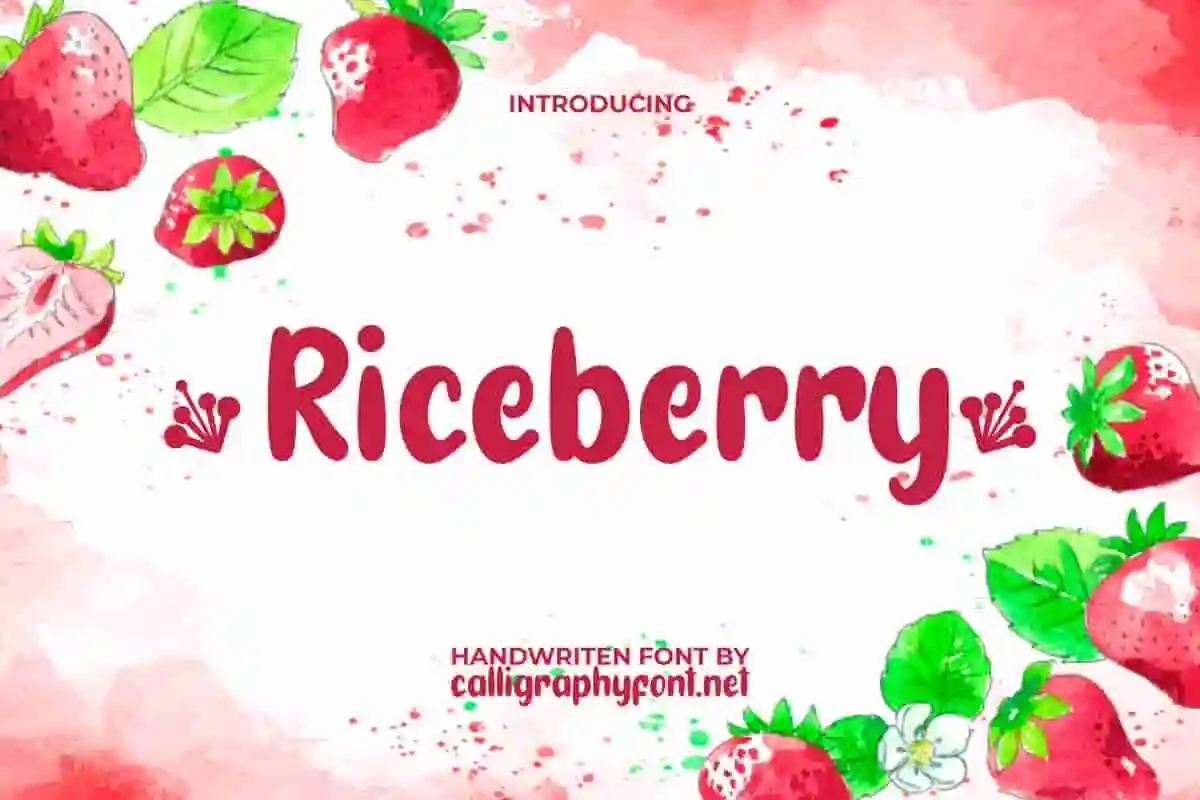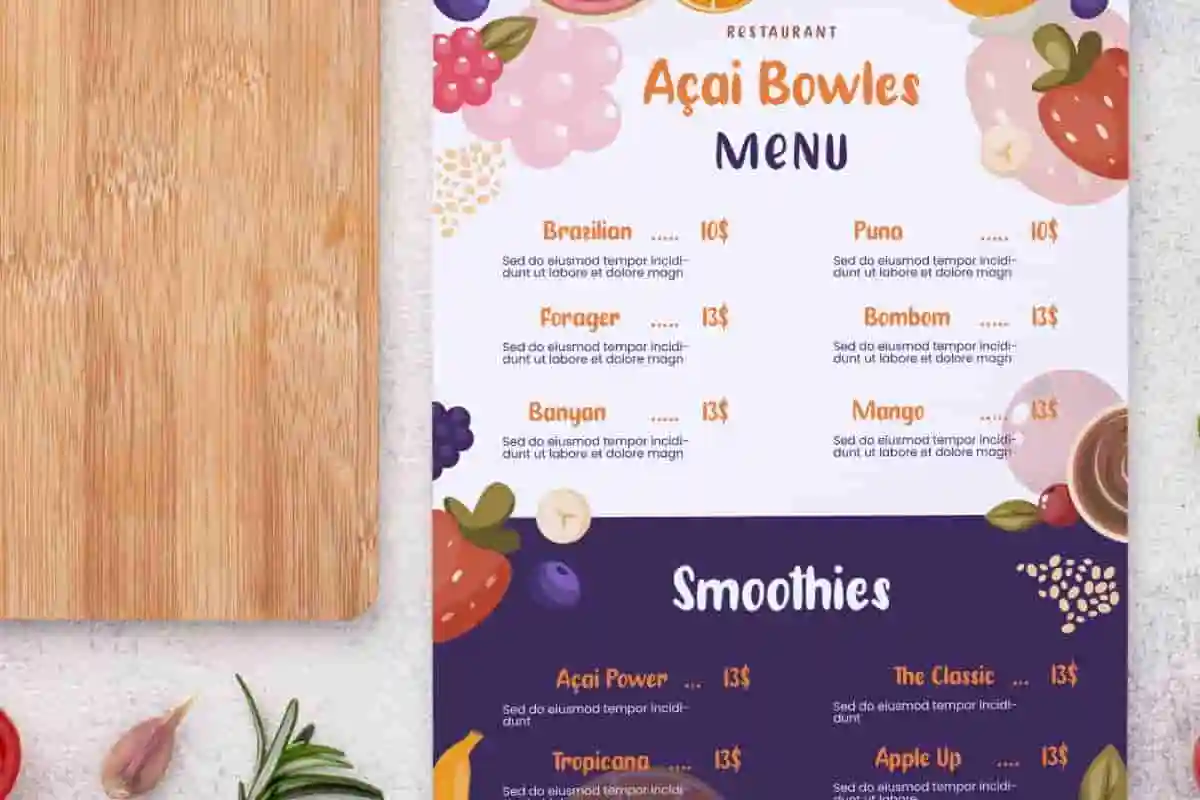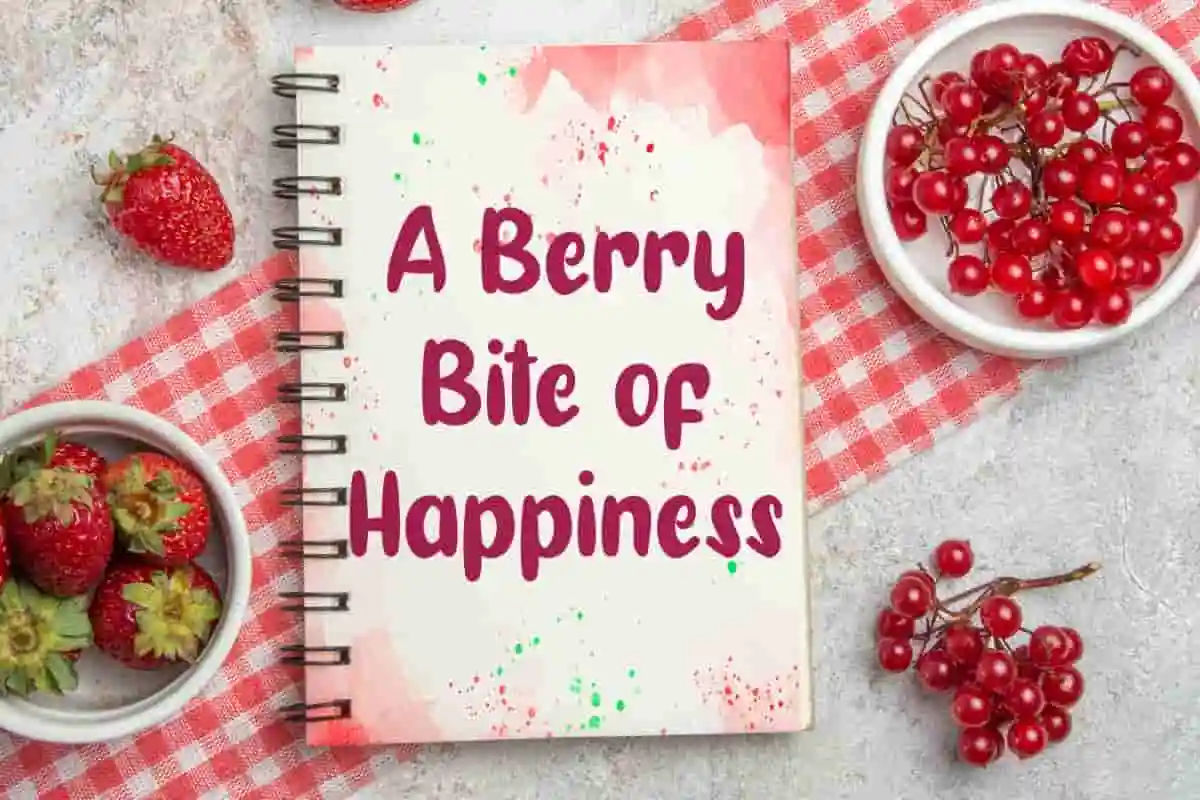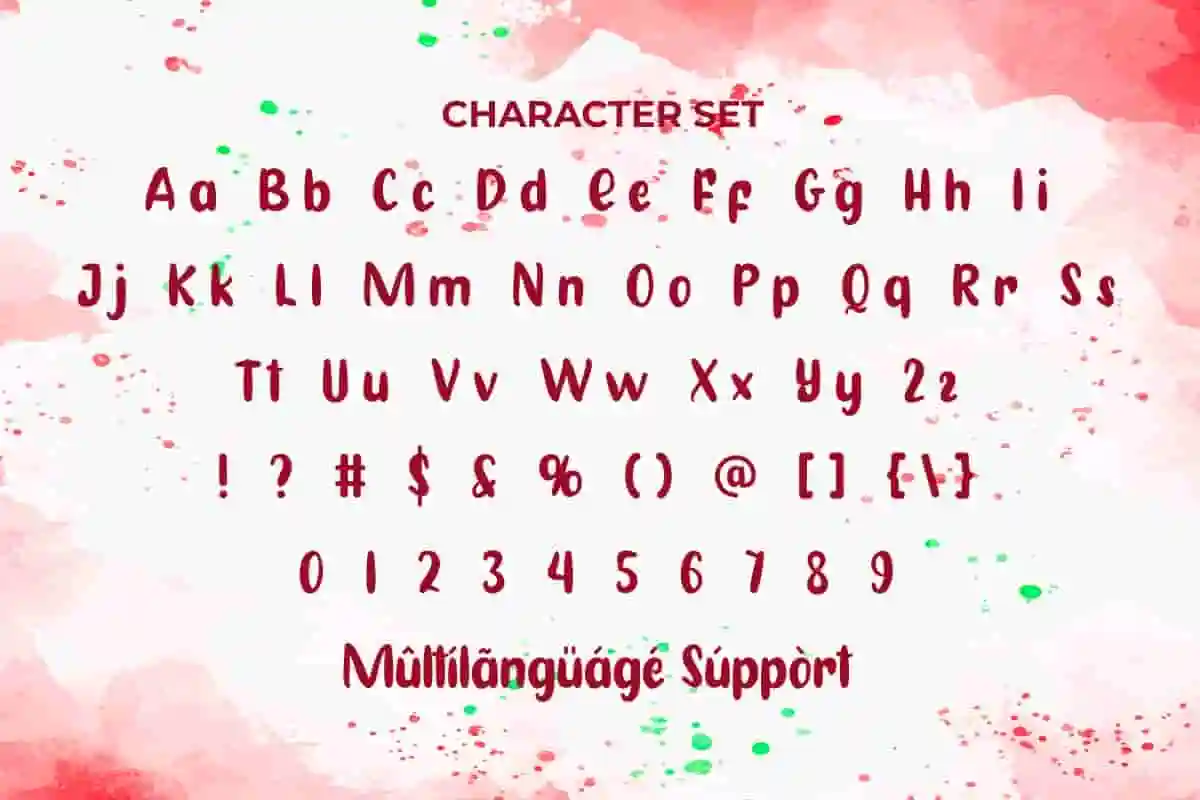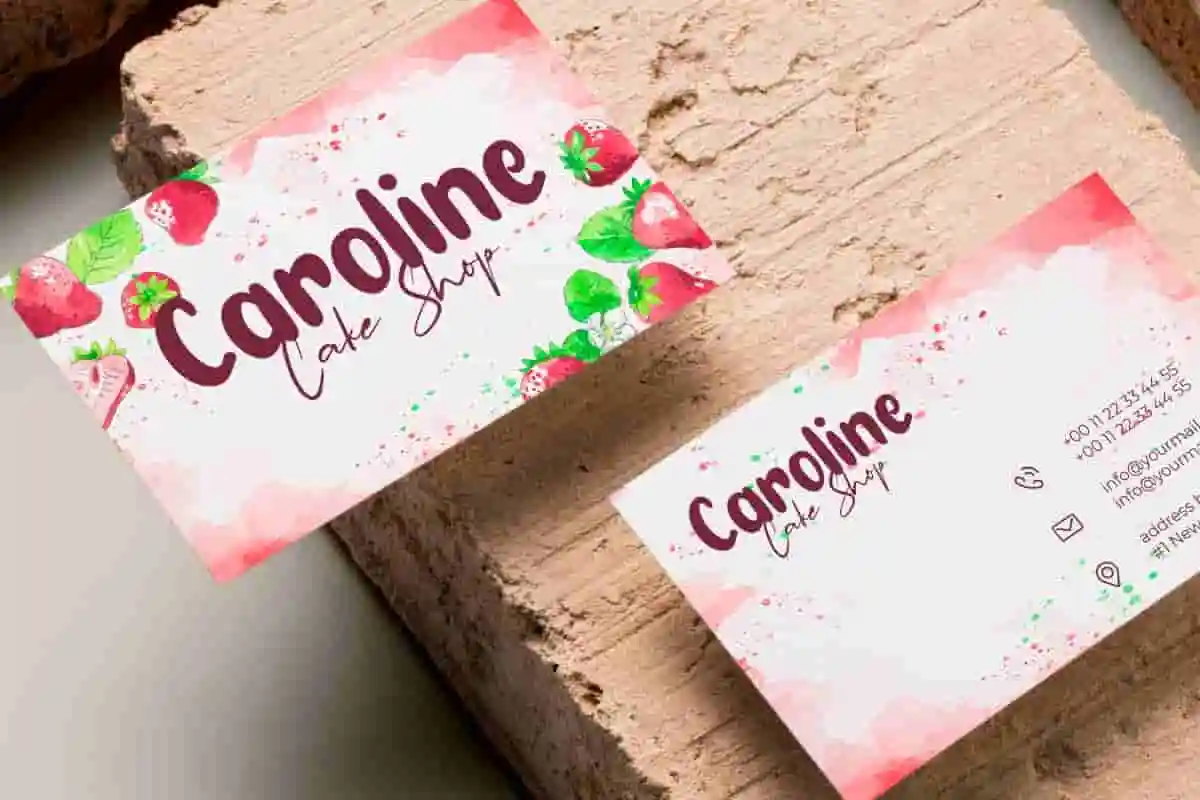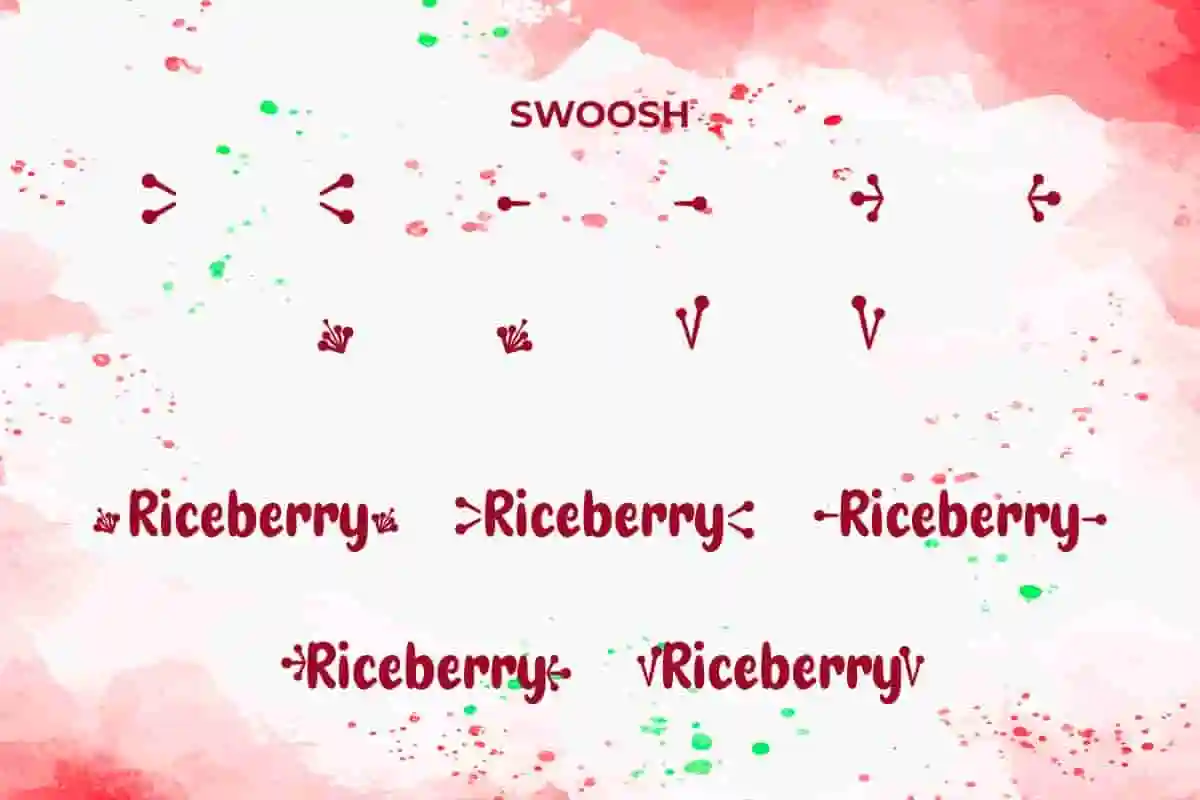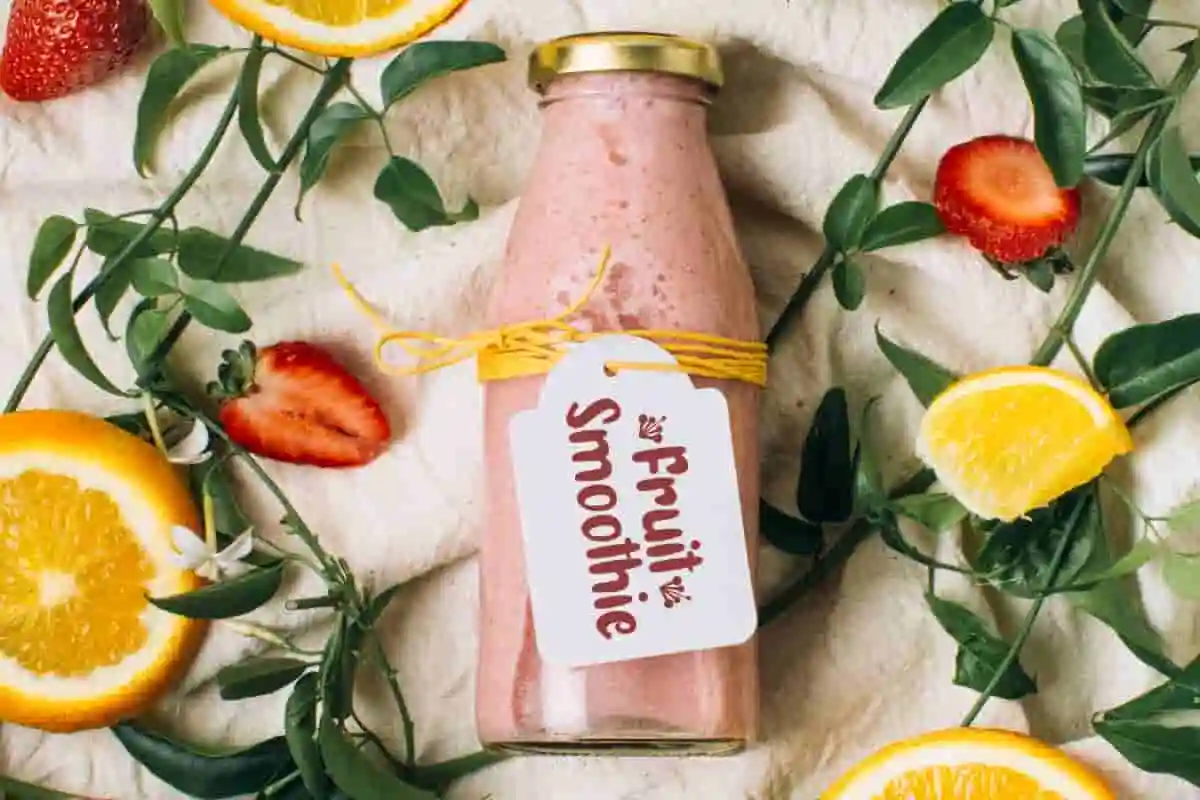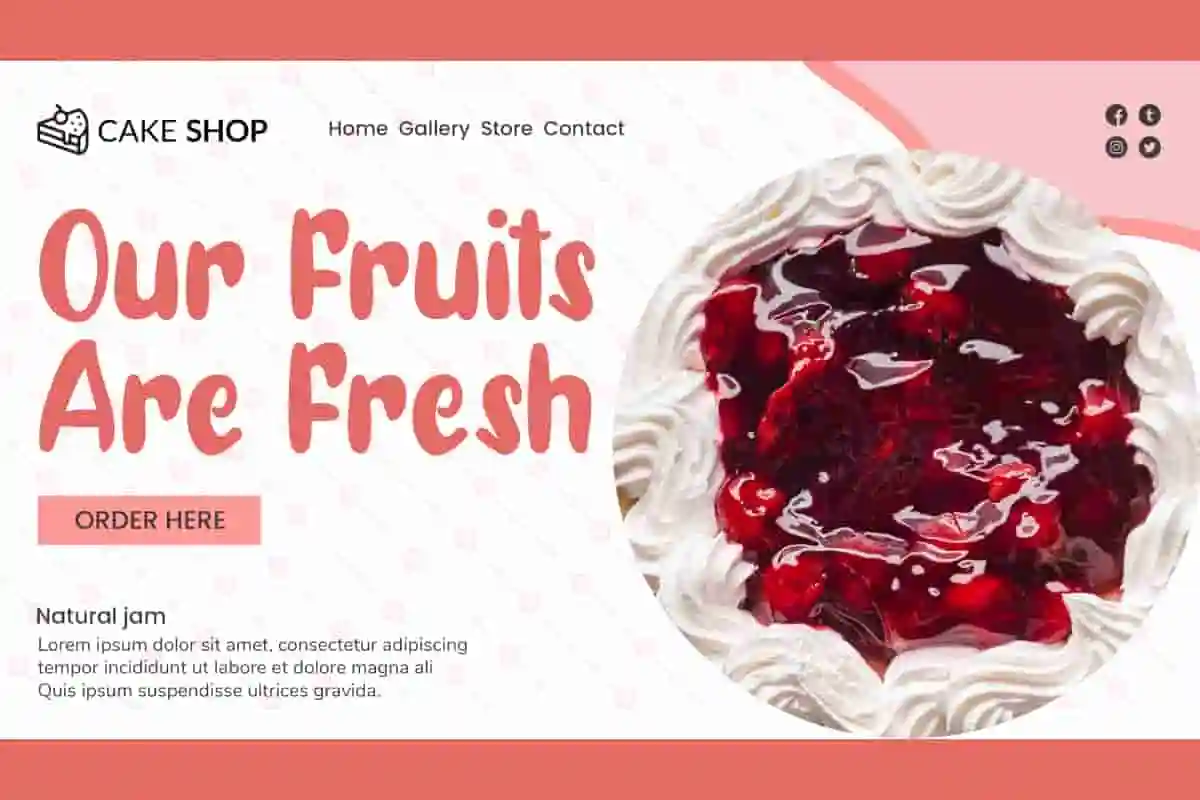
Riceberry Handwriting Font
Riceberry Font is a cute stylish bold brush written display font with a refreshing mood. The theme is inspired by fiery red which is attractive like fresh fruit!
Riceberry Font is a cute stylish bold brush written display font with a refreshing mood. The theme is inspired by fiery red which is attractive like fresh fruit! It is your choice to add a fun atmosphere to your design, such as all kinds of advertising purposes, blogs, branding logo, business cards, cover design, flyer, greeting cards, header, headline, label, mockup template, poster, product packaging, quotes, menu brochure, poster, screen print, stationery, sticker, title, watermarks, website, and much more! The charming shape of the letters conveys a sweet charm and friendliness.
When it comes to creating bold, eye-catching designs, the Riceberry Handwriting Font is the perfect choice. This modern decorative typeface is carefully crafted to bring a balance of creativity and readability, making it ideal for both digital and print projects. Whether you are a graphic designer, brand creator, or small business owner, Riceberry will help your work stand out with confidence.
The Riceberry Display Font features stylish letterforms with a contemporary flair, making it suitable for logos, posters, social media graphics, product packaging, book covers, invitations, and more. Its versatile design ensures that it works beautifully in both minimalist layouts and vibrant, playful projects. With its strong presence, Riceberry easily grabs attention while maintaining a professional and polished look.
One of the biggest advantages of this display font is its ability to adapt to different creative needs. Use it to design a modern brand identity, create stunning headlines, or craft marketing materials that instantly captivate your audience. Its decorative charm and clean strokes ensure that your message is both impactful and memorable.
Riceberry Handwriting Font is a cheerful and sweet handwriting font that is here to lift the mood and create a fun and creative aesthetic. The font will be ideal for whatever your business background, such as bakery, brand of yoghurt, cafeteria, cake shop, event organizer, food franchise, fruit garden tourist spot, fashion, food and drinks brands, graphic design, homeware, ice cream & gelato shop, movie, restaurant, photography, printing, publishing, toy store, and more.
Riceberry Handwriting Font comes with a complete set of Uppercase and Lowercase Basic Characters, Number, a large range of Punctuation and Symbol. Also equipped with a choice of beautiful Swoosh. It is supported with multilingual characters and ready to use both on Windows machine or Mac with simple installations. It’s tested to work well in the Adobe Apps (Illustrator, Adobe InDesign, Adobe Photoshop) CorelDraw, and others. PUA Encode Characters means you can access all the characters easily – Fully accessible without additional design software.